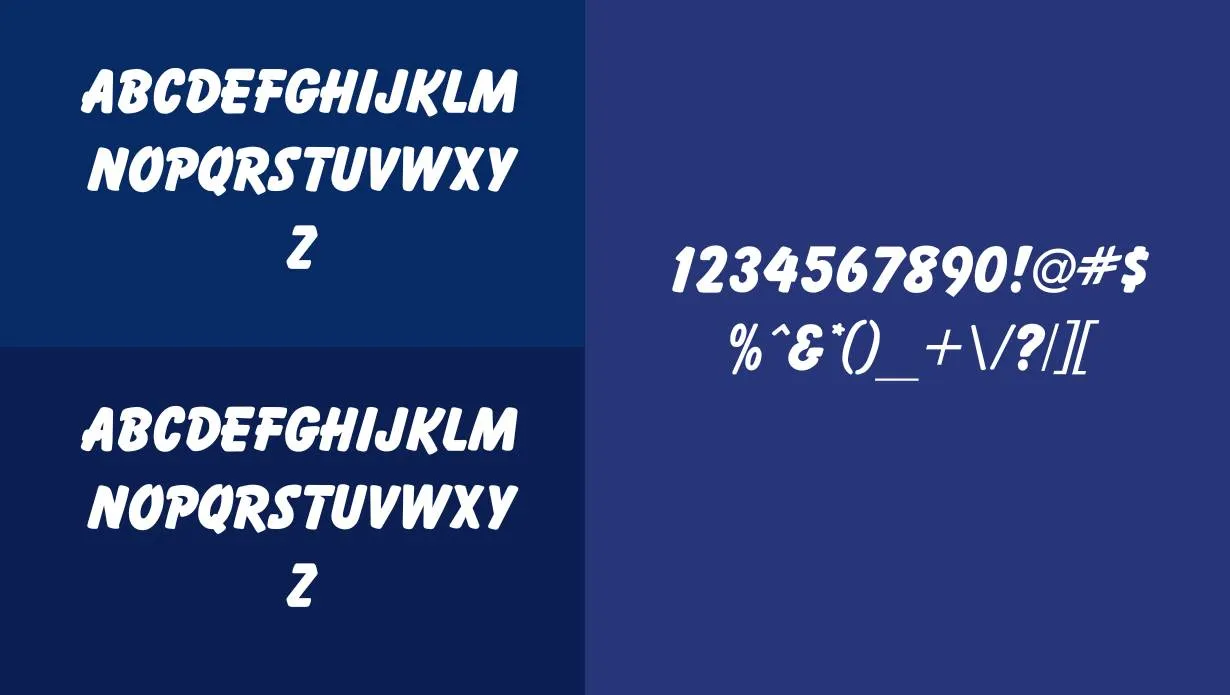
Balloon Extra Bold font is a lively and attention-grabbing typeface that brings a sense of playfulness to your text. The bold and rounded letters give the impression of balloons, making it an excellent choice for celebratory occasions.
This font is perfect for birthday invitations, party banners, or any project that calls for a festive touch. Balloon Extra Bold adds a sense of joy and excitement to your words, ensuring that your message is conveyed with enthusiasm.
| Name | Balloon Extra Bold Font |
| Designer | Max R. Kaufmann |